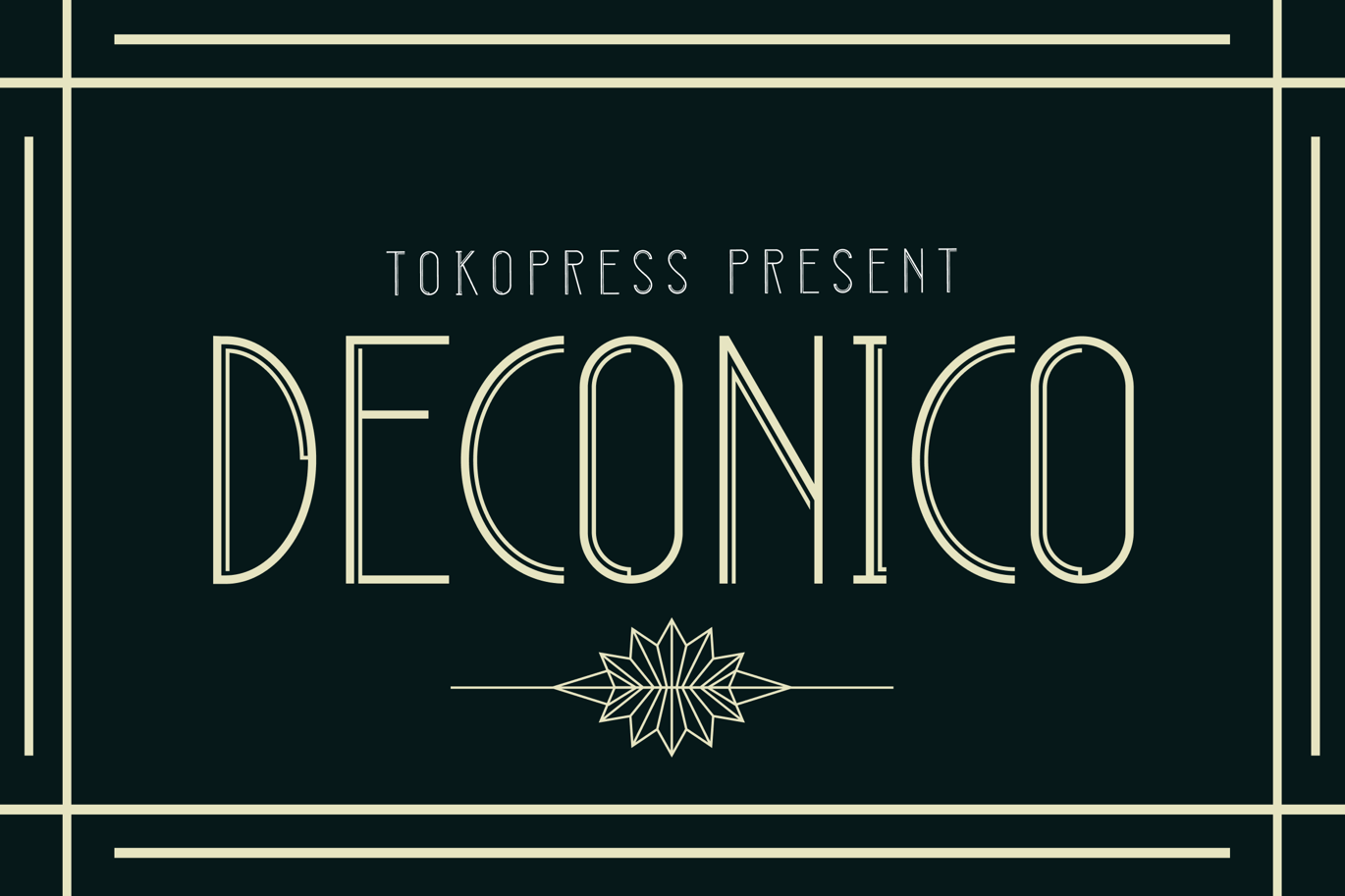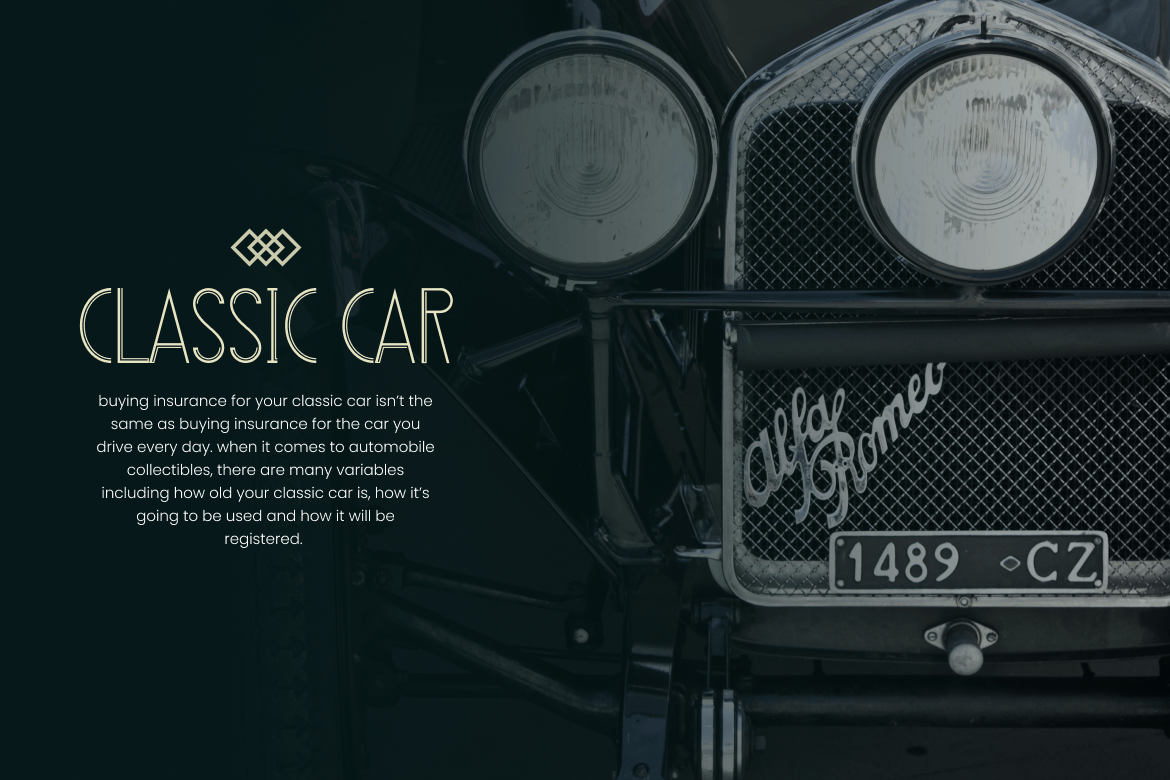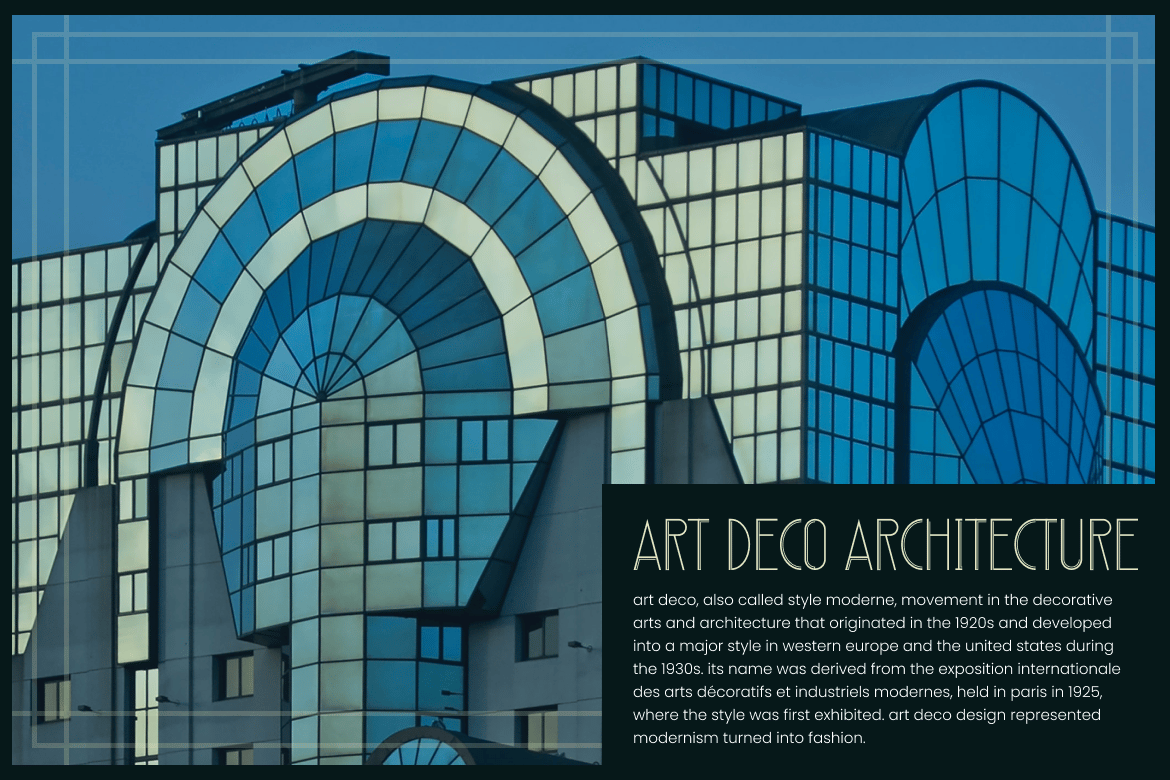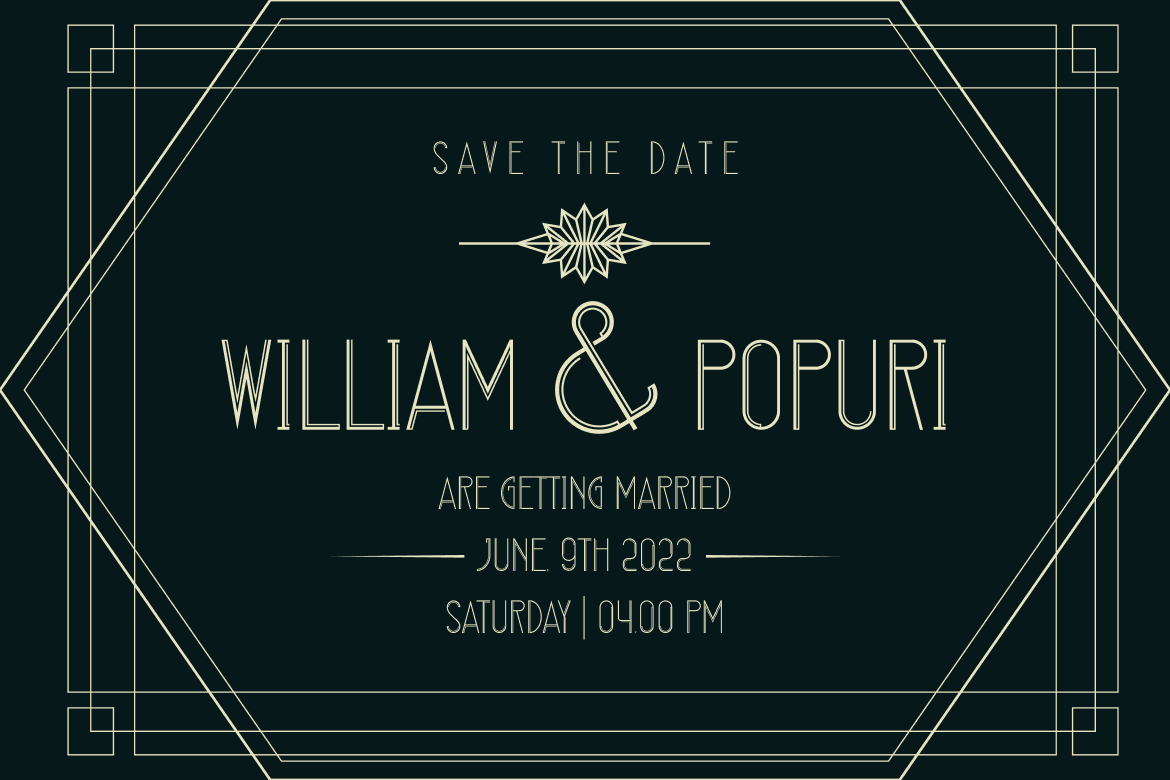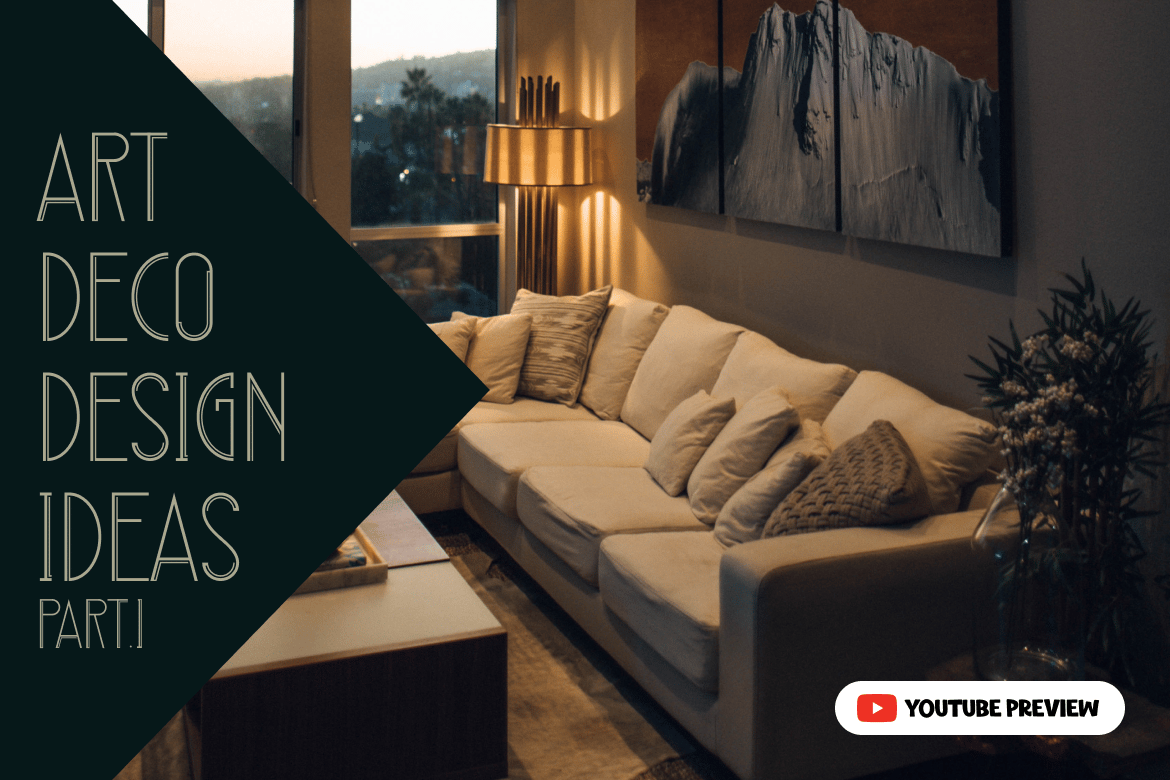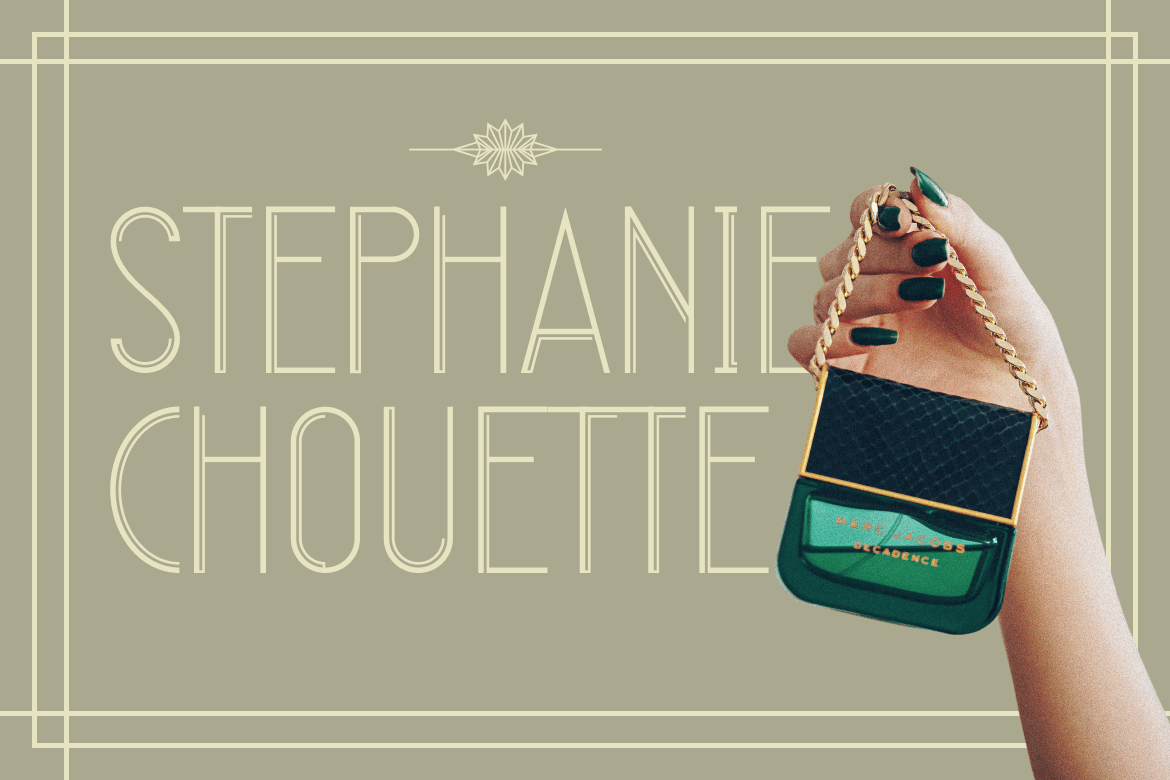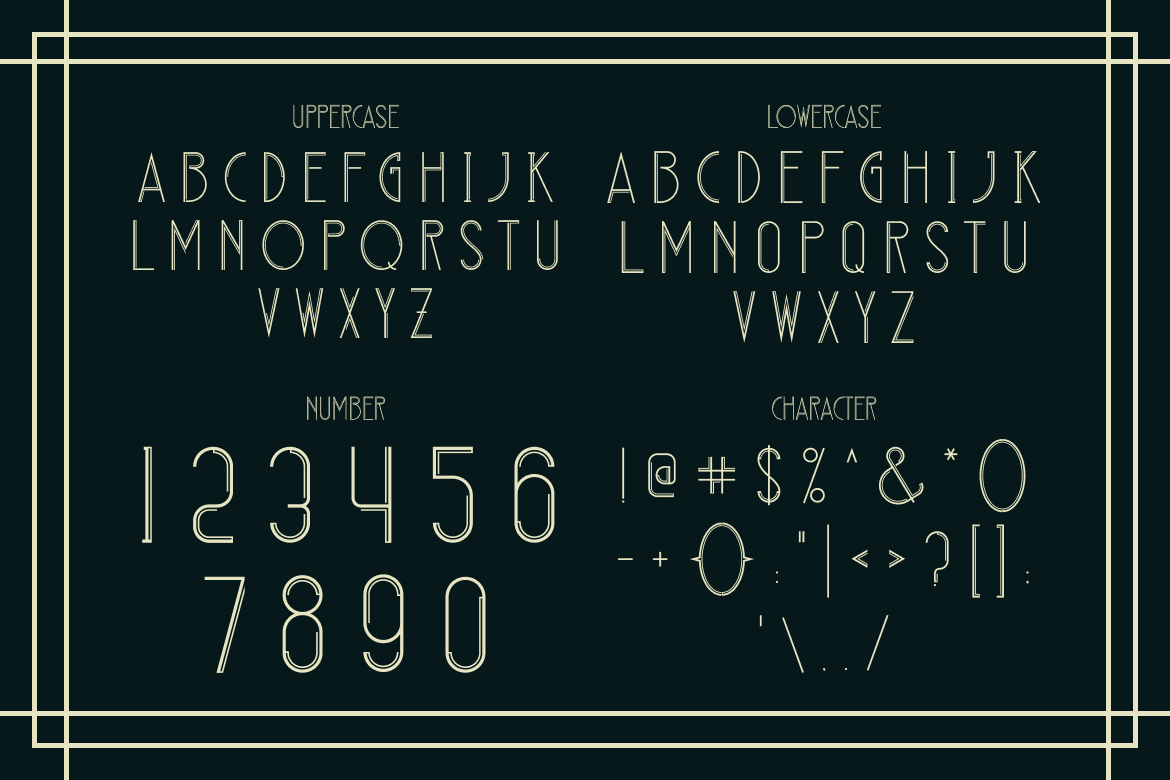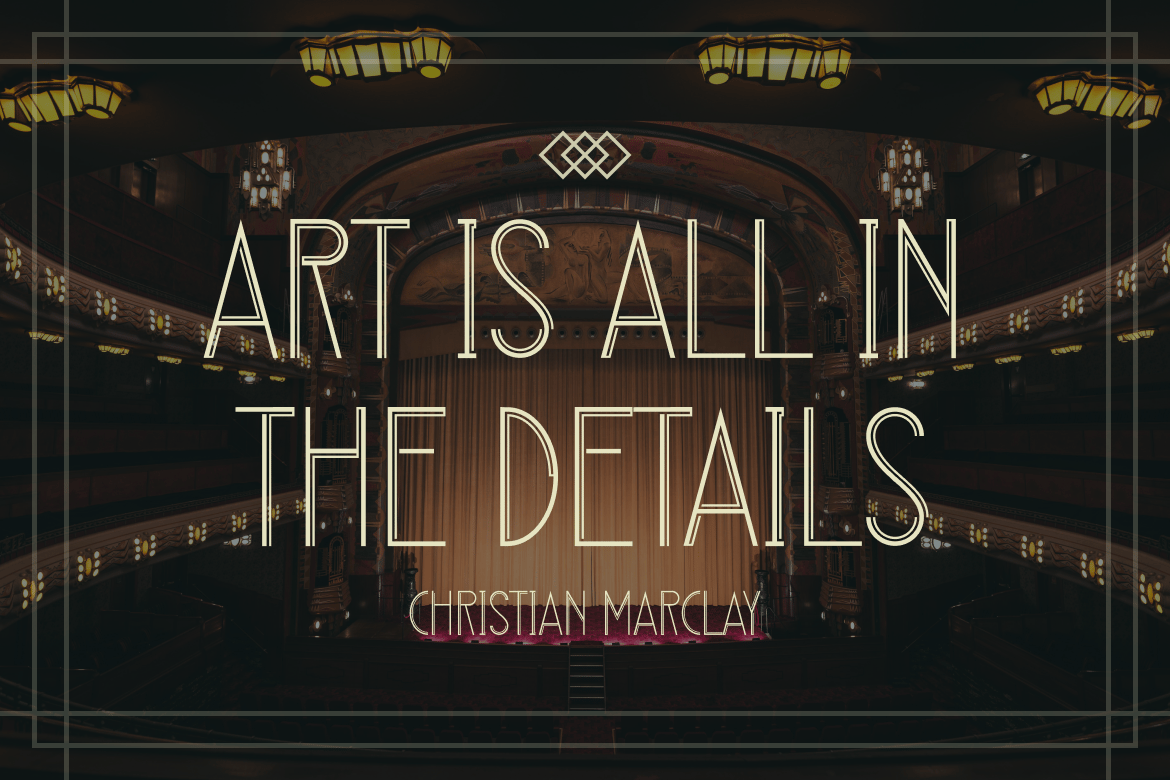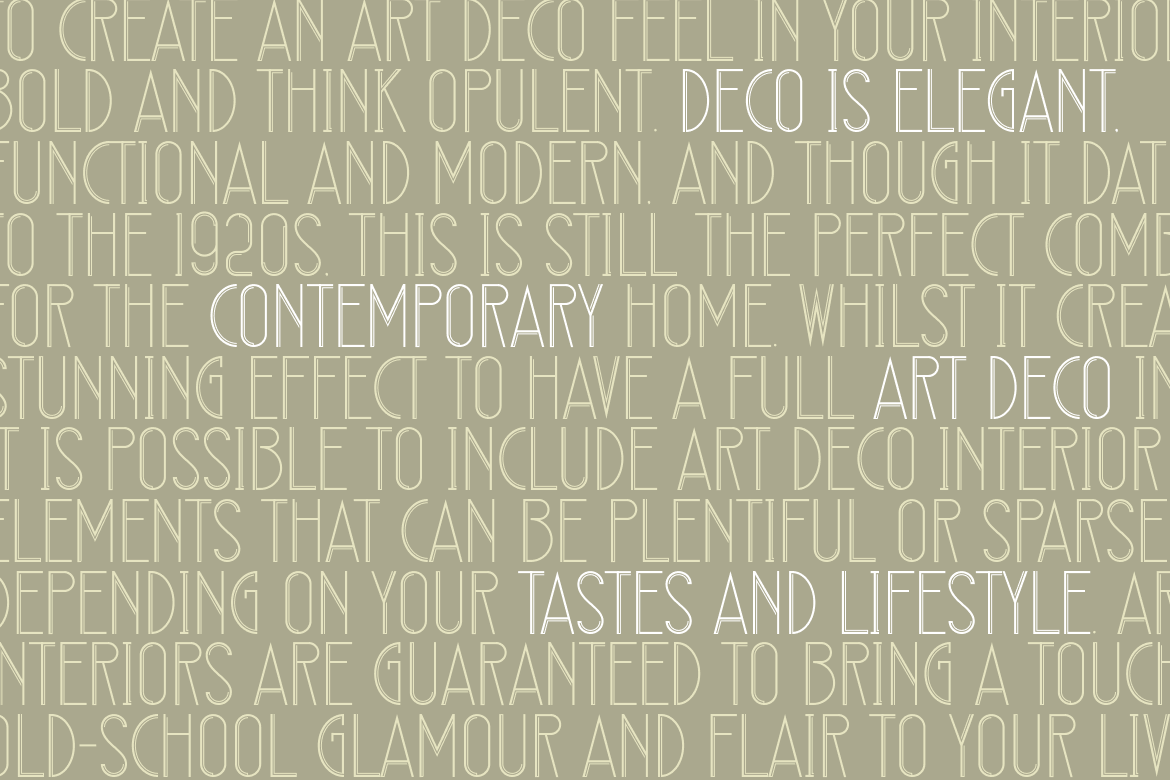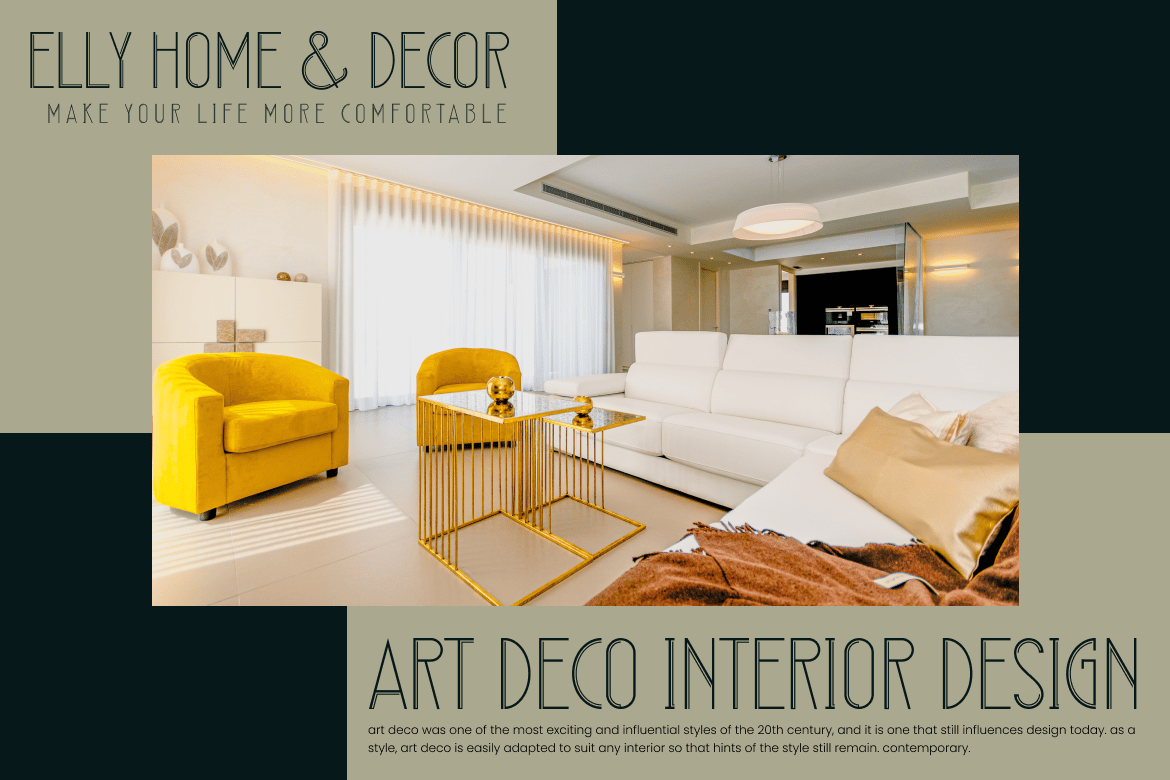
DECONICO – art deco font
Taking an art deco look, DECONICO is all about classic, elegance, and high class feel all over it.
Suit perfectly for high-end market audiences, poster, movie title, classic restaurant/ cafe menu, magazine, youtube covers, youtube thumbnails, social media page covers and so on…